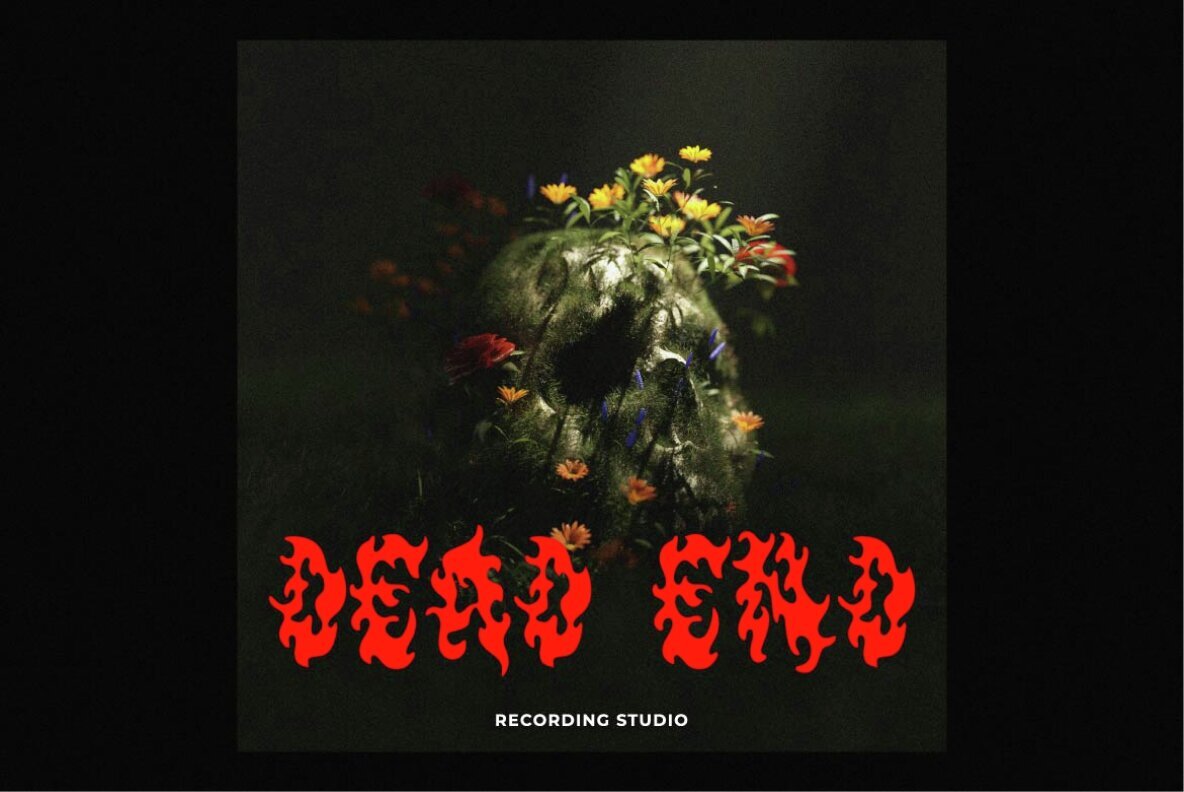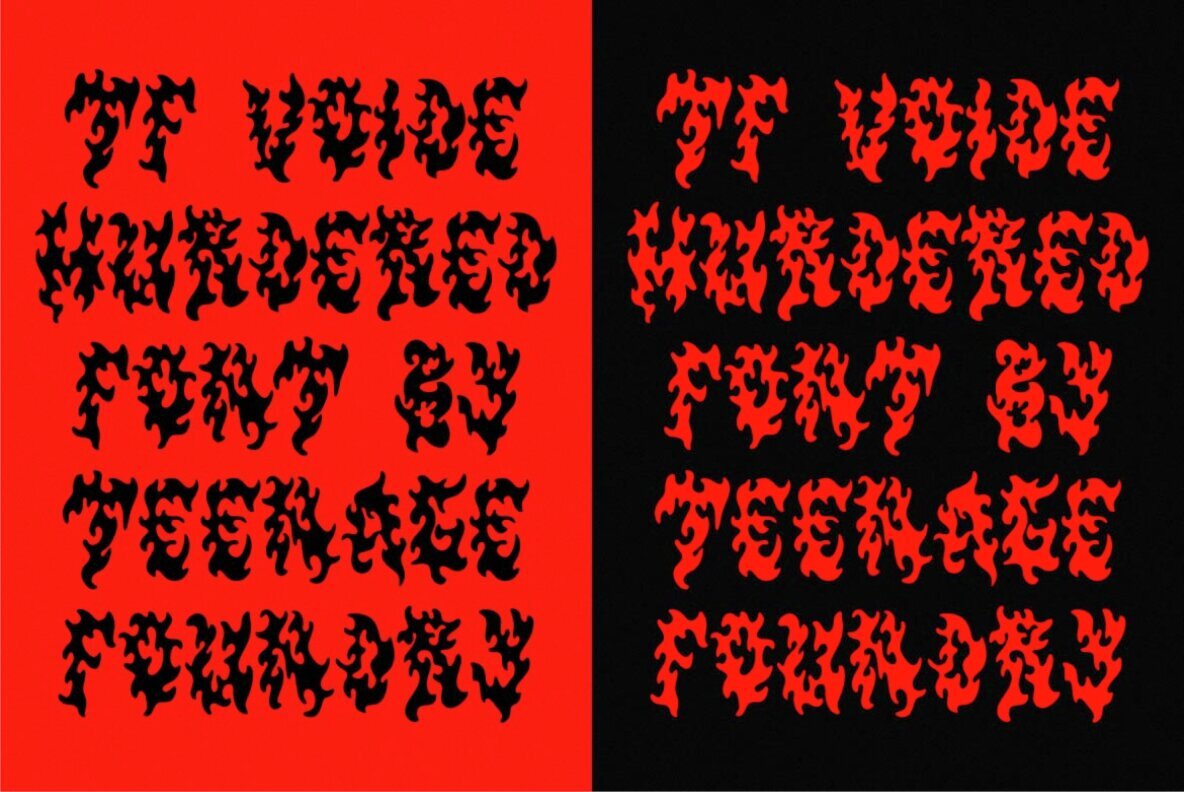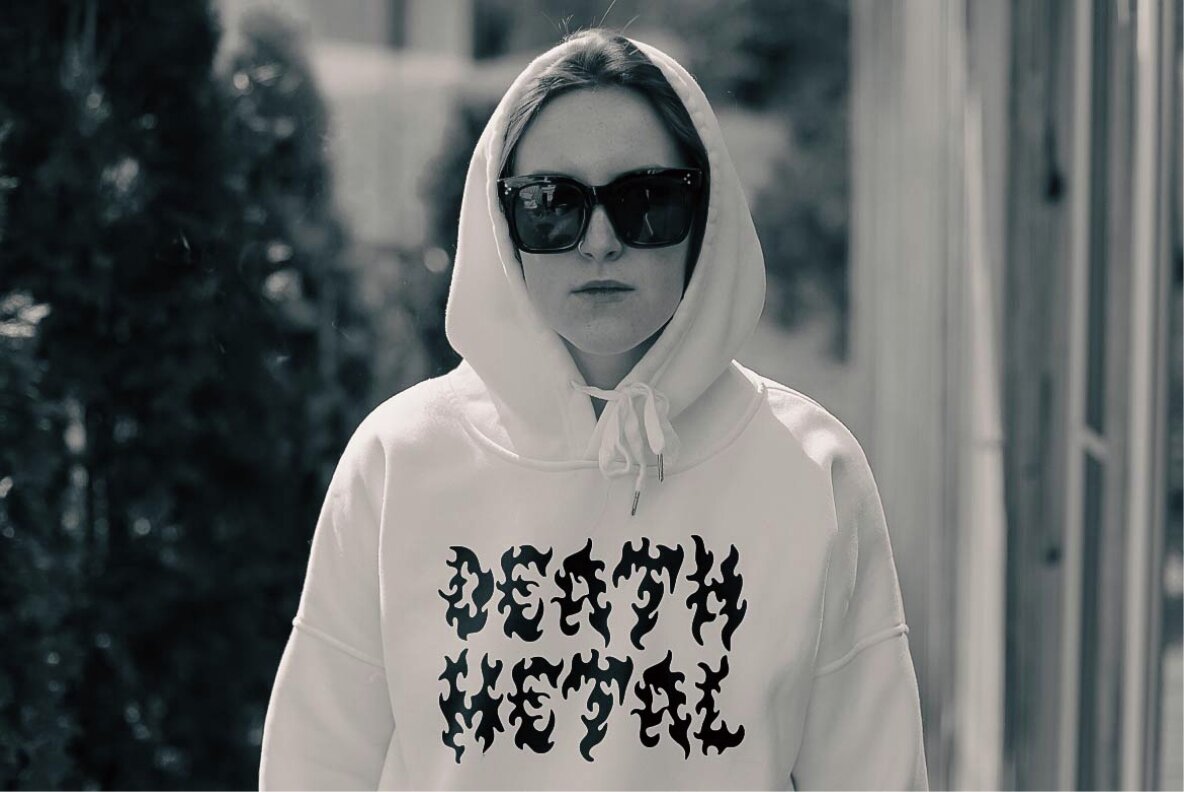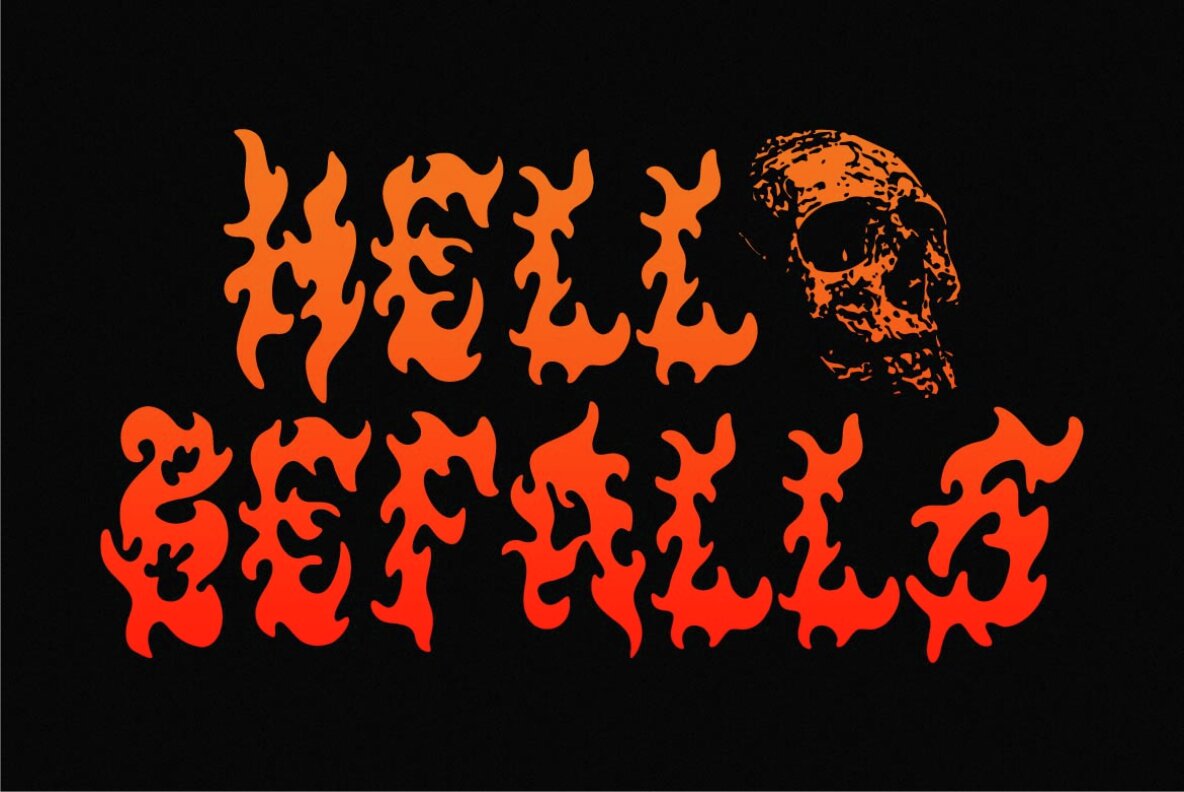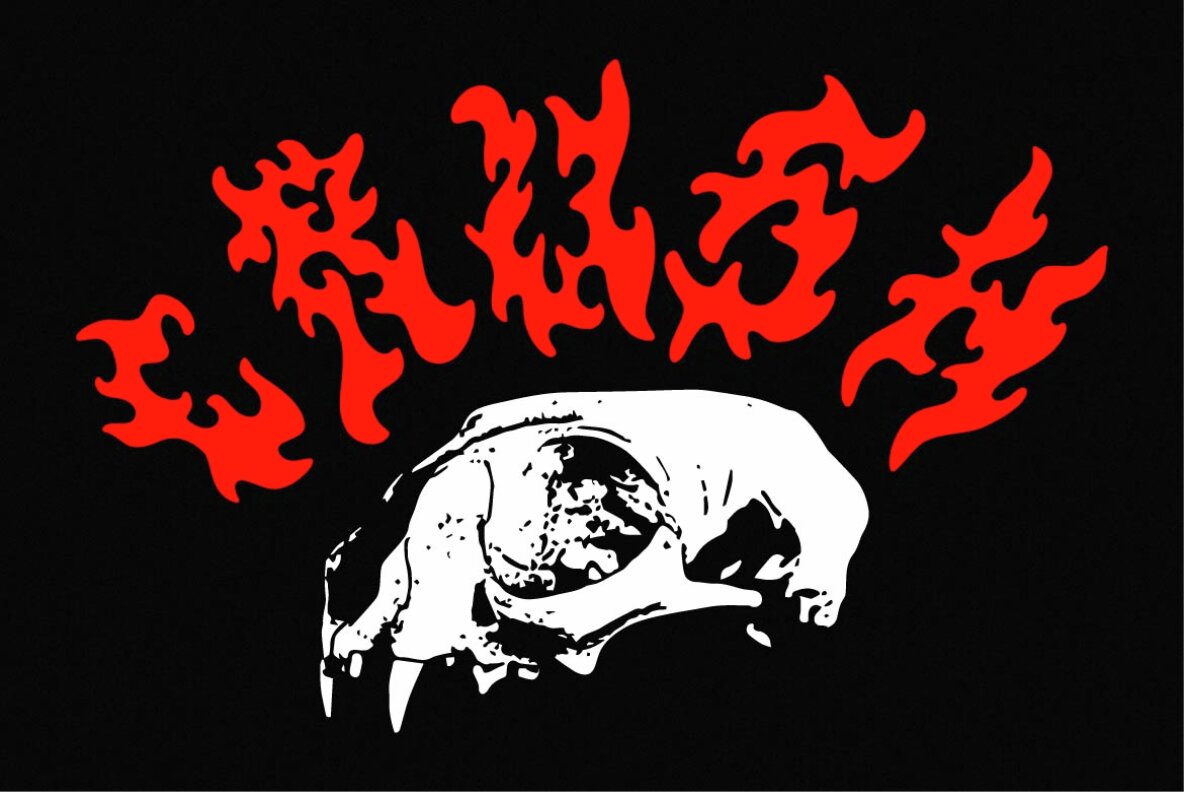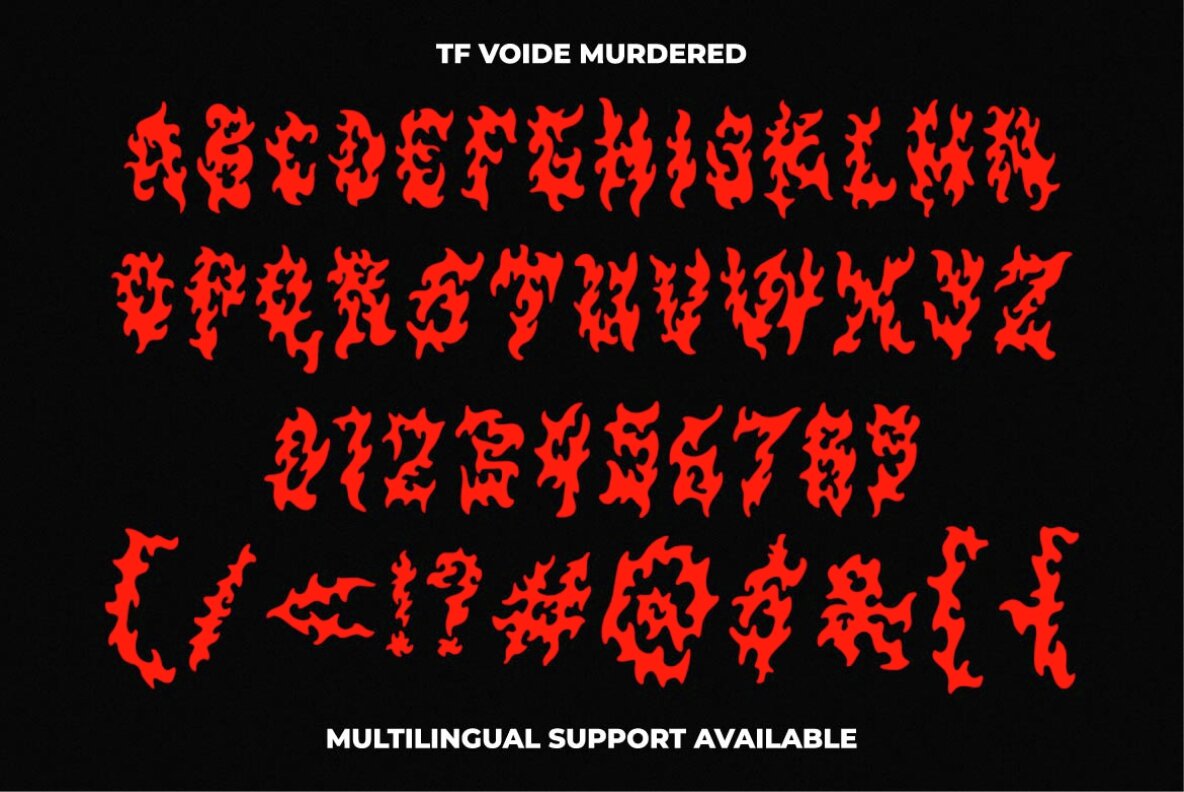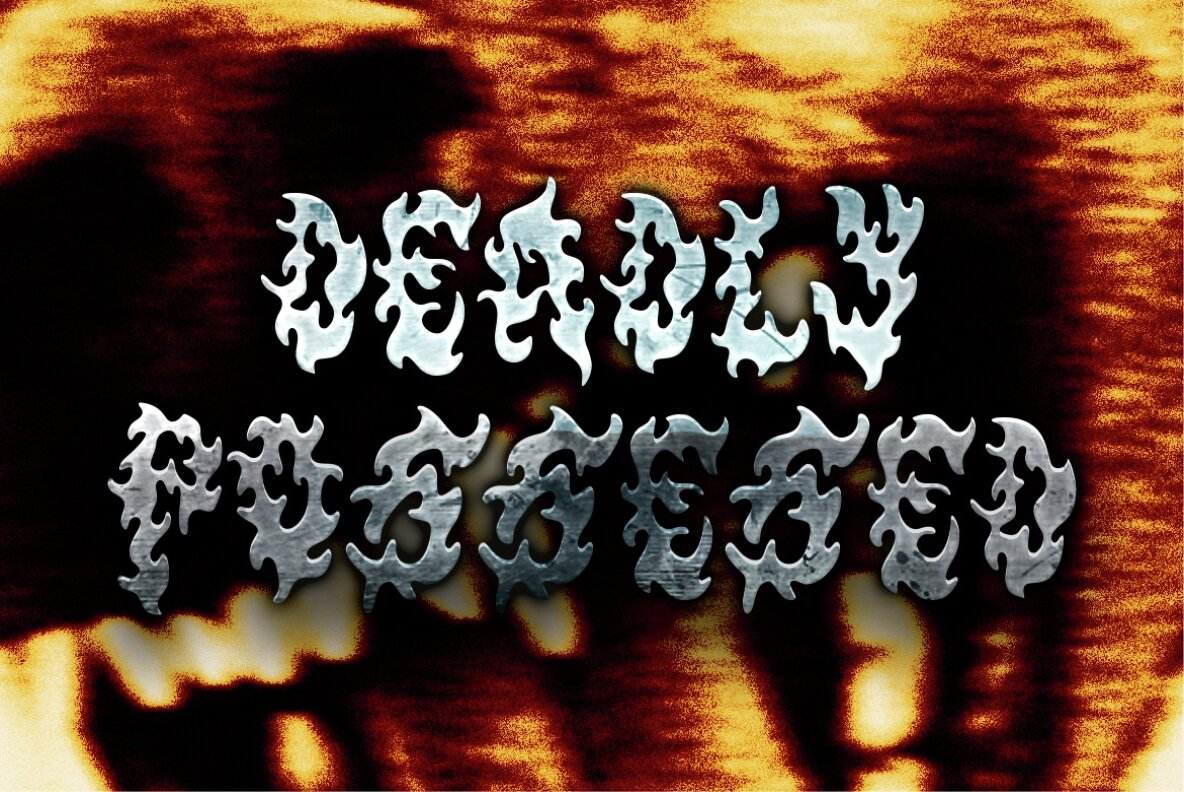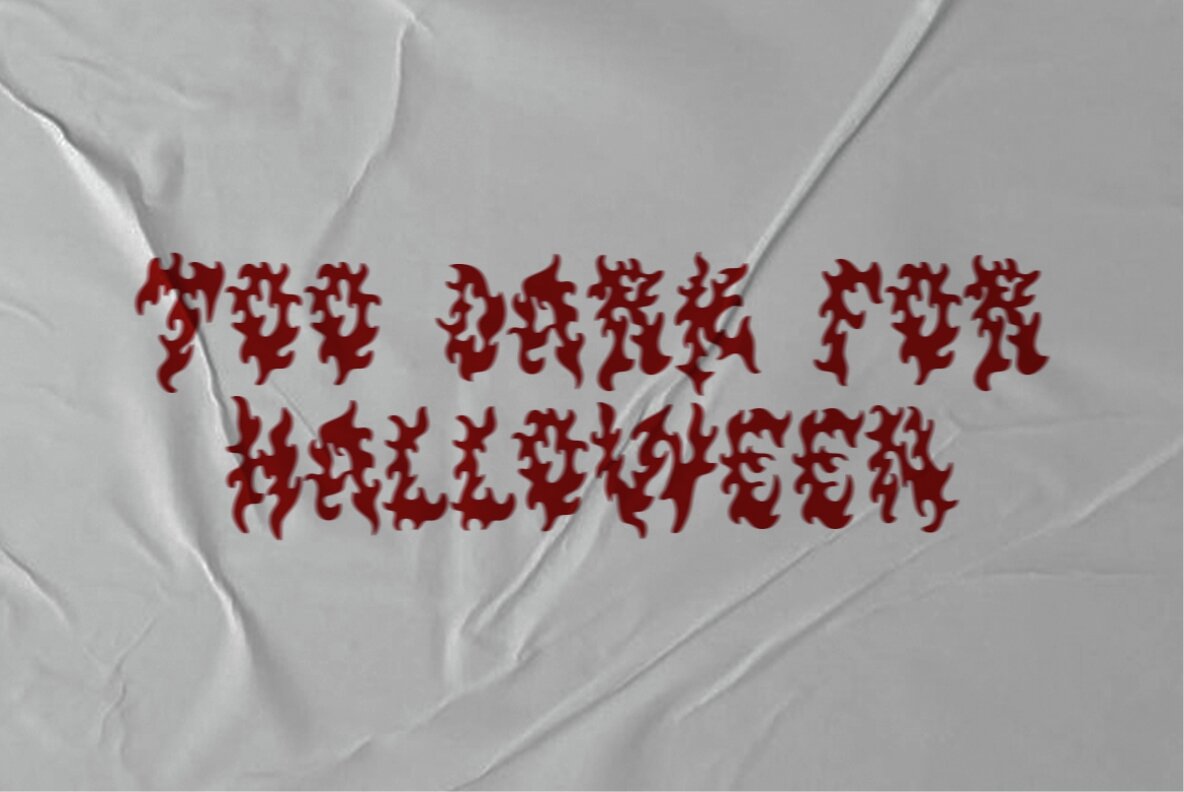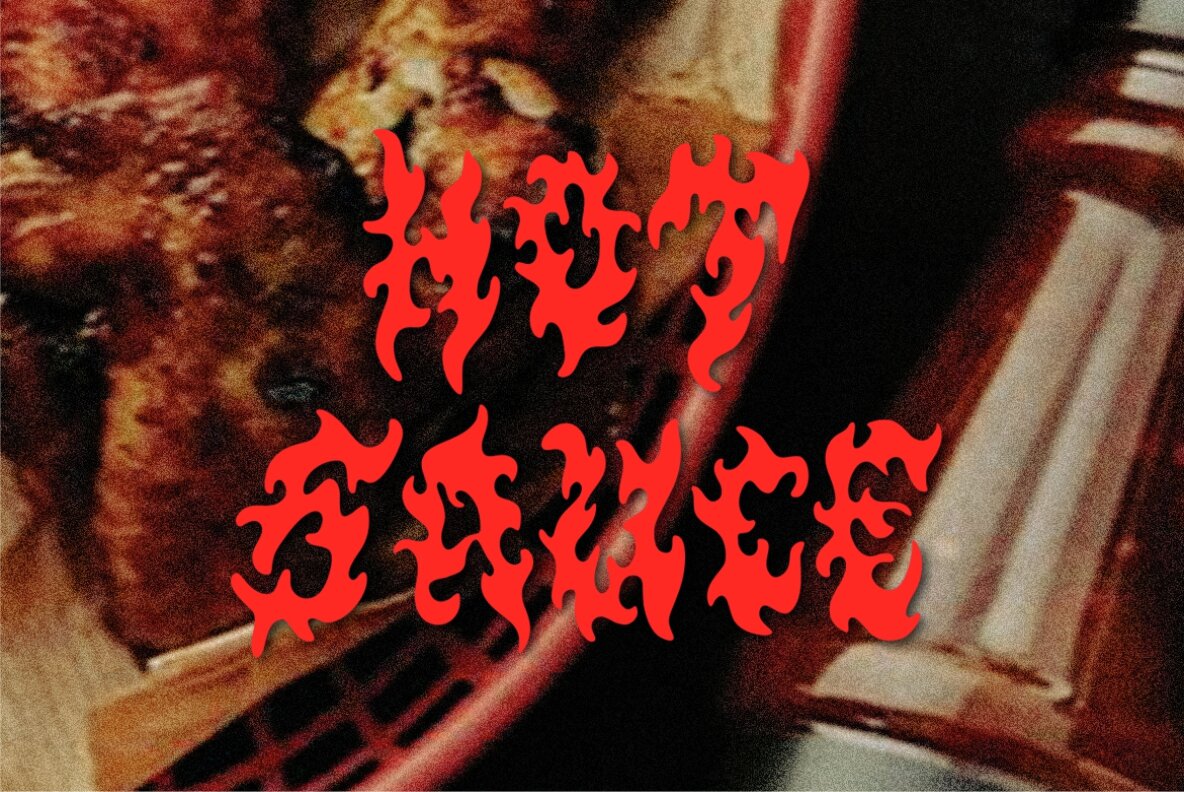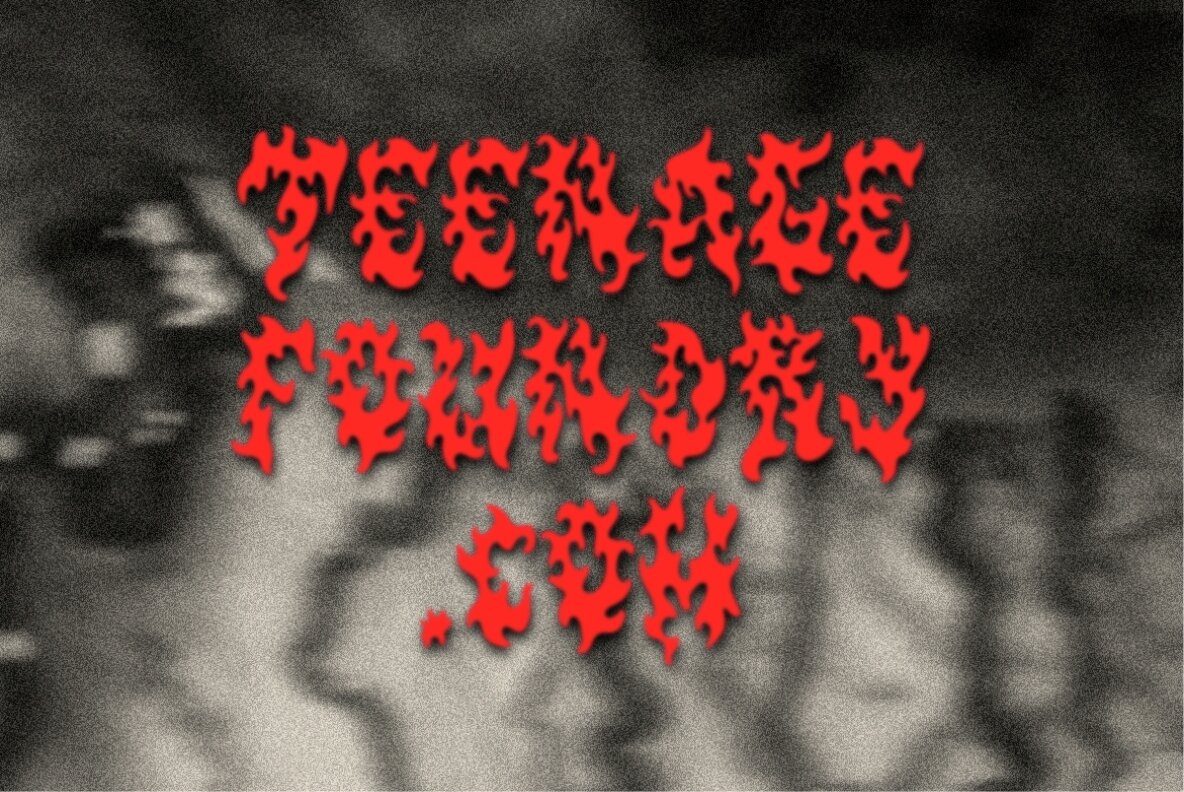
TF Voide Murdered Font
TF Voide Murdered is a death metal font that embodies the raw energy and intensity of the genre. Crafted with meticulous attention to detail, this font captures the essence of heaviness, chaos, and rebellion. This font is an ideal choice for merchandise and more, leaving a lasting impact on your audience.TF Voide Murdered: Intense Death Metal Font
Ferocious Design Elements
Comprehensive Features